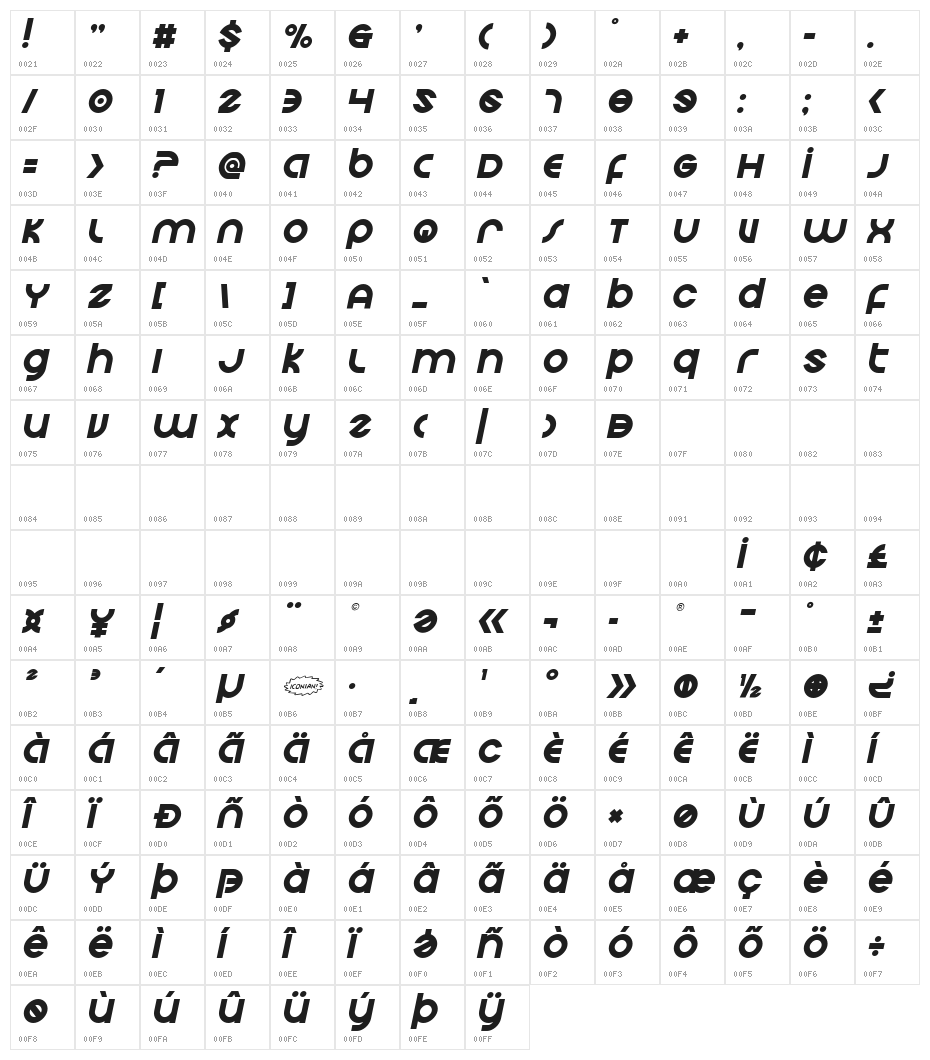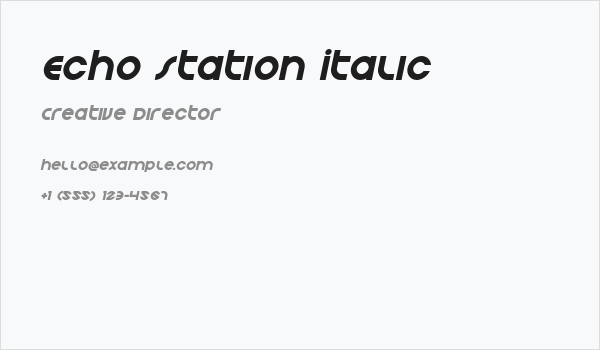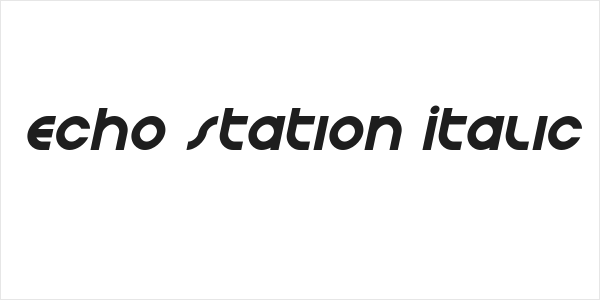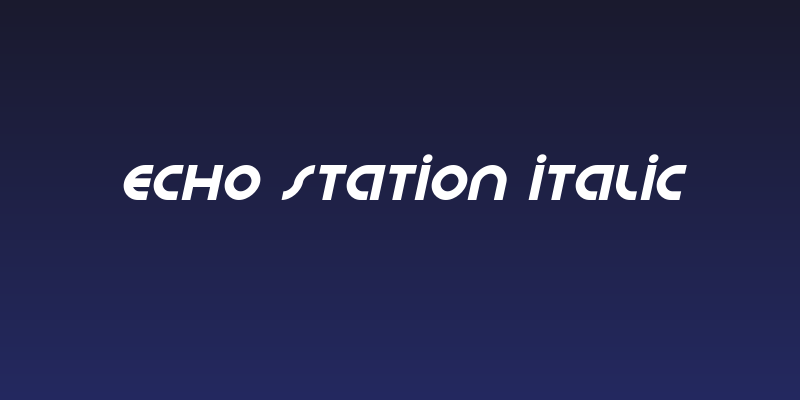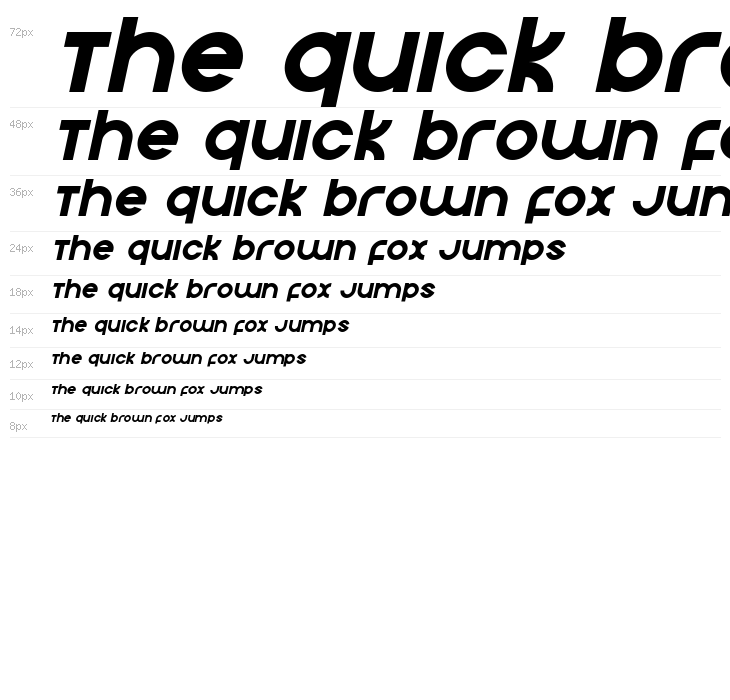
Echo Station Italic Font
Echo Station Italic Description
This font features a bold and dynamic style with a futuristic flair. The characters are italicized, giving them a forward-leaning appearance that suggests movement and speed. The strokes are thick and consistent, providing a strong visual impact. The rounded edges and smooth curves add a modern touch, while the geometric shapes maintain a sense of structure and balance. The font is highly legible, making it suitable for various design applications. Its unique style is both eye-catching and versatile, perfect for projects that require a contemporary and energetic look.
| Overall Style | Futuristic and dynamic |
| Proposed Projects | Ideal for branding, advertising, technology-related designs, and sports-themed graphics. |